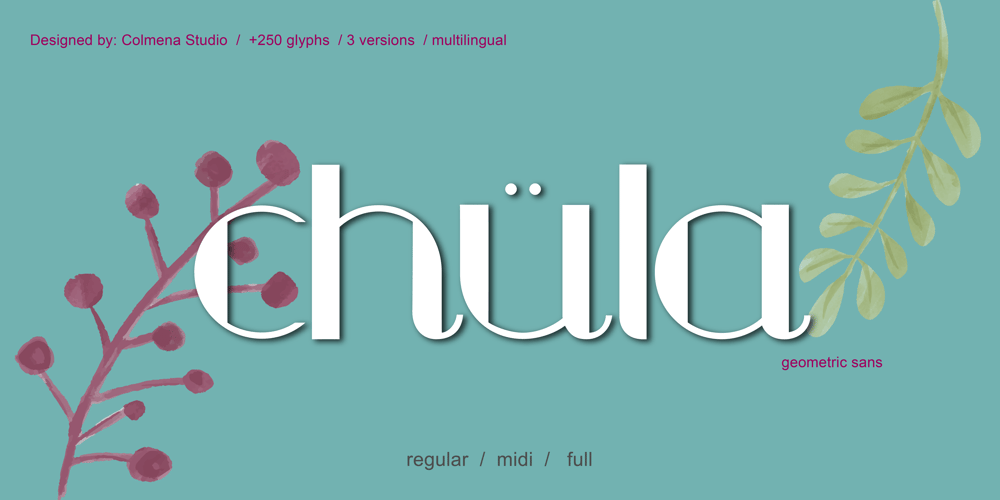
Chula
Chula font
Chula Font Family was designed by Gabriela Rodriguez and published by Colmena. Chula contains 2 styles and family package options. Colmena studio presents Chula, a geometric typeface 100% original, traced in the beginning by hand, chula is not based in any other typeface, each glyph was drawn in base of circles and rectangles, the tail of certain glyphs gives to the typeface and designs fluency and movement. Chula is fresh and modern but with a little touch of vintage, ideal for big texts and formats, but also legible in small size. You can use it in 3 versions, regular, medium full and full. It works perfectly in logos, monograms and patterns.